Election campaigning was in full swing. On our way their, we drove through two Obama rallies. In Portland, we saw quite a few signs, all of which were less polished than the great Obama–Biden CI stuff.
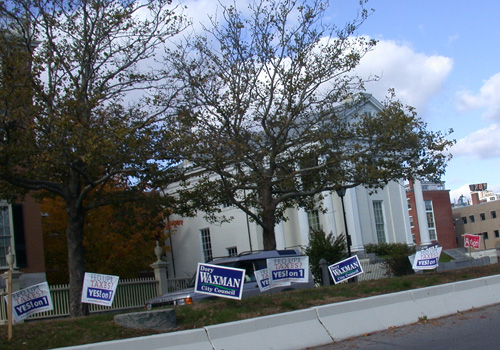
This image will appear quite typical for my American readers, as front lawns all over the country are decked with signs like these. German readers may note the small size of the signs, and the lack of any portrait photos. We just don’t do that over here.
I don’t know who Tina Smith is, or what party she campaigns with, but this is one wacky sign! I don’t know how many different stencil fonts are being used here. Maybe her election team cut their own letterforms? I can’t even begin to think where they got their inspiration from… perhaps an old Emigre catalog? I wonder if “beacon for change” is a euphemism for “legalize drugs now,” because that is the vibe that I get from this design.
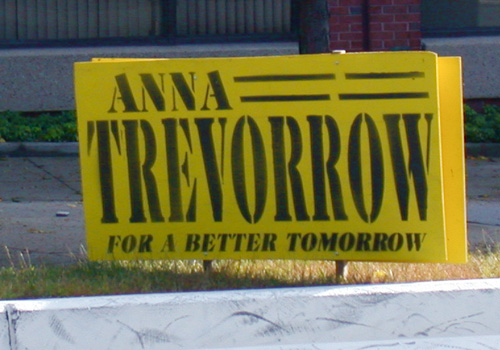
Anna Trevorrow’s team seems to have restrained themselves to three fonts, one for each sized-section. In and of itself, this might be reason enough for me to want to vote for her over Ms. Smith, would they be running for the same office (although Ms. Smith was kind enough to remind me what she was running for on her sign). However, Melanie informed me that the tagline on these signs originally read “for a better tommorrow” (sic). Afterwards, each was repainted with the correct spelling of tomorrow. Hmm… this would pose a tricky question for me, were I registered in this district. Should I cast a vote in solidarity with politicians who cannot spell correctly all of the time, or should I jump to another candidate?